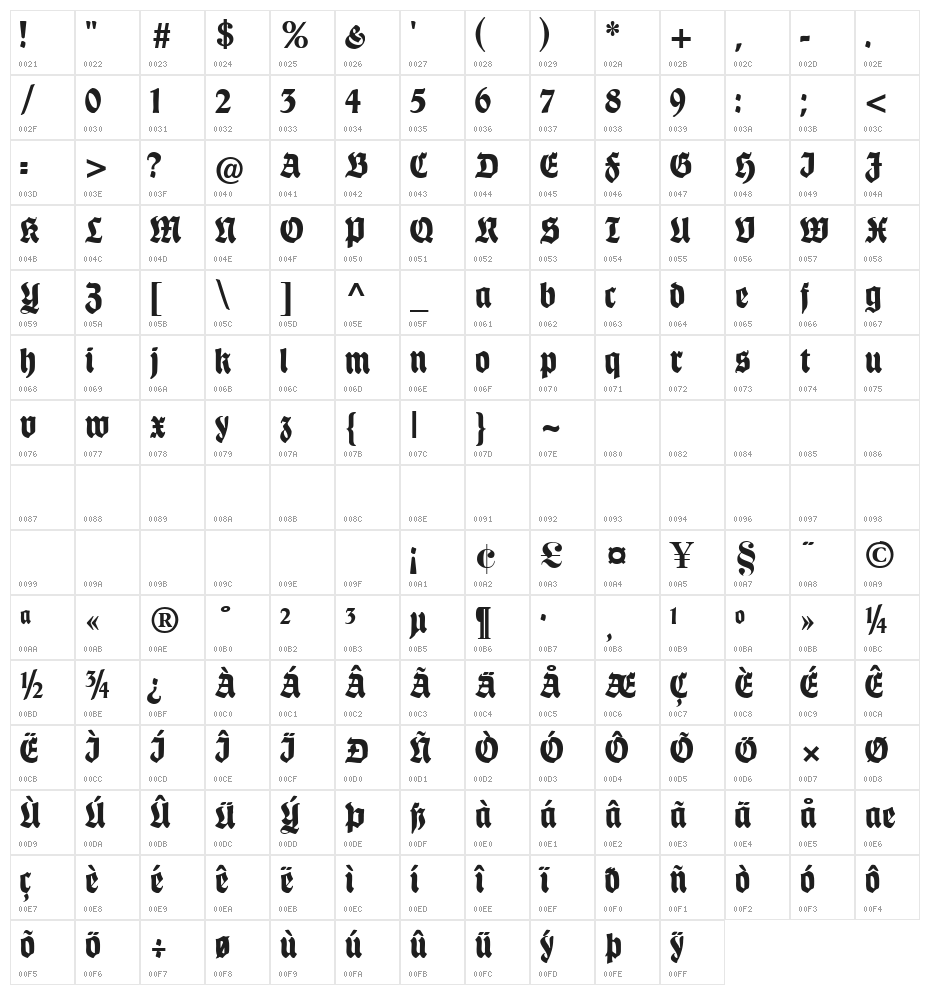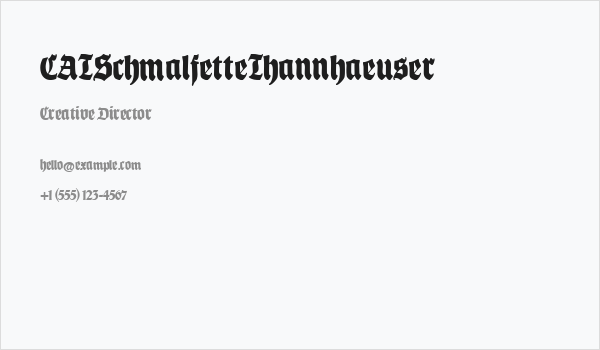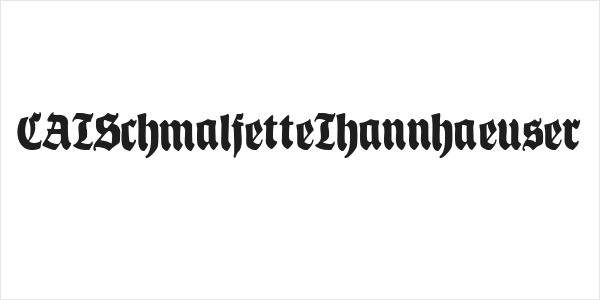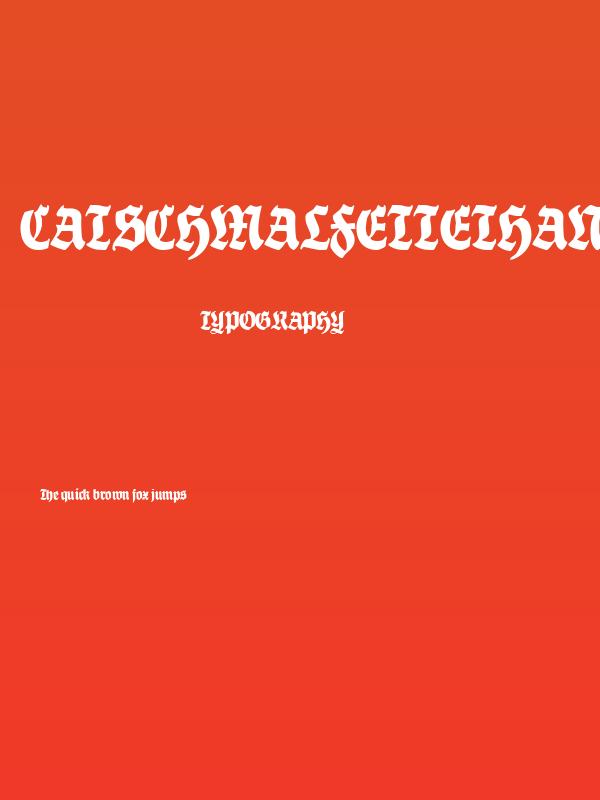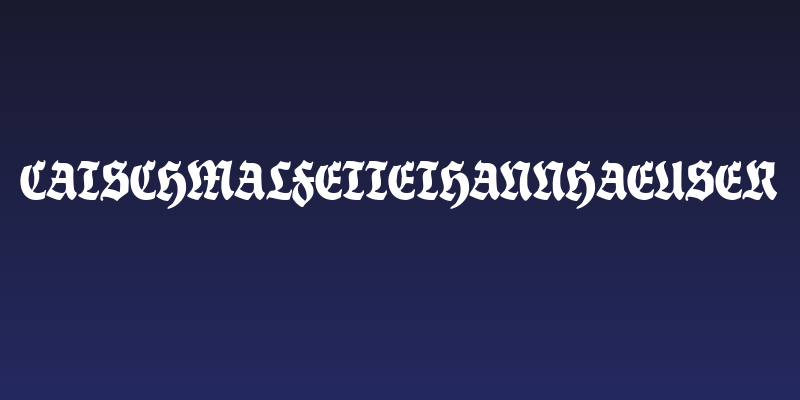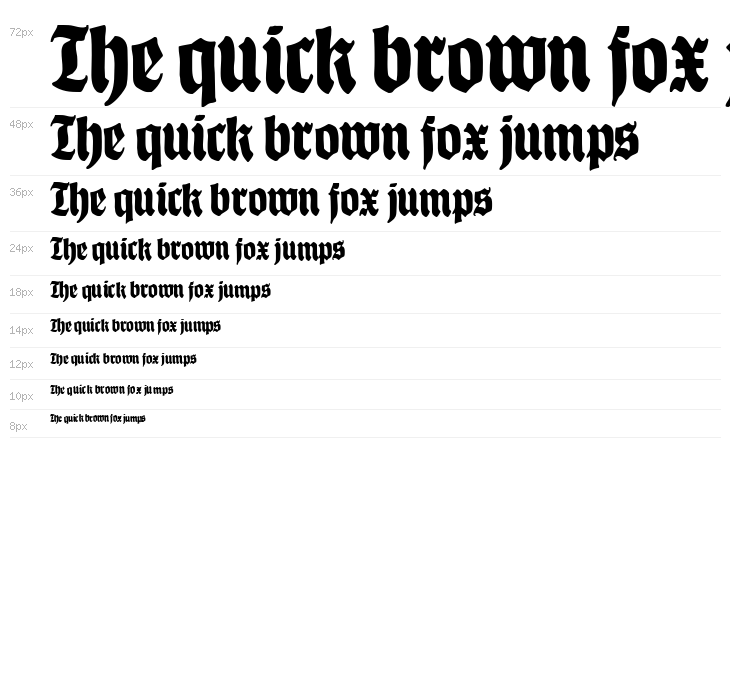
CATSchmalfetteThannhaeuser Font
CATSchmalfetteThannhaeuser Description
This font exhibits a bold and dramatic style, characterized by its intricate and angular letterforms reminiscent of traditional blackletter scripts. The uppercase letters are particularly striking, with sharp edges and pronounced serifs that give them a commanding presence. The lowercase letters maintain a similar aesthetic, with a slightly more condensed form that enhances readability while preserving the ornate quality. The numerals are consistent with the overall style, featuring unique curves and angles that align with the font's historical inspiration. Special characters are equally detailed, adding to the font's versatility for various design applications. This typeface is ideal for projects that require a touch of elegance and historical flair, such as event invitations, certificates, or branding for luxury products.